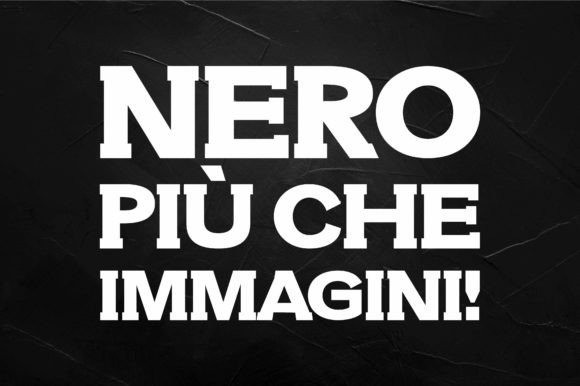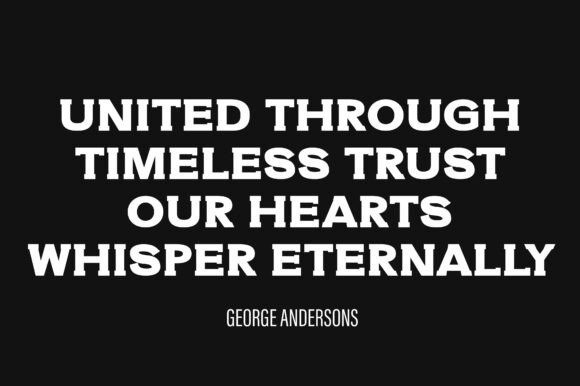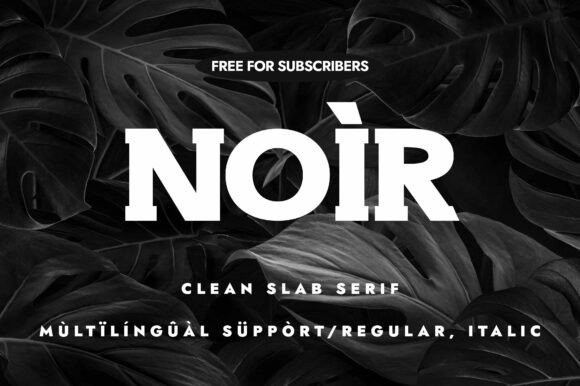
Noir Font
Noir Font is an elegant slab serif typeface. At first, it was designed as a modern slab serif font that could be used as a display font, but after the glyphs were revised it reached its full potential. Although it is a display slab serif, it is still readable in small scales. Use it confidently for powerful visual attention. You can also use it in any elegant or luxurious context.